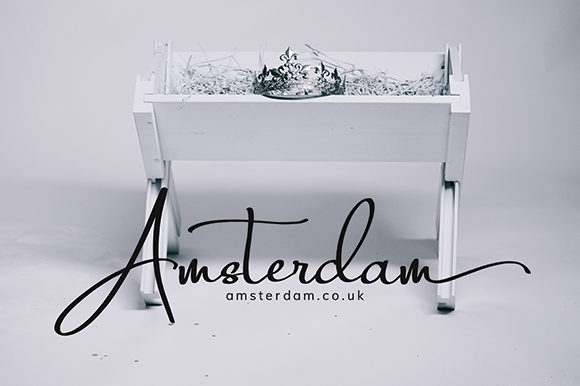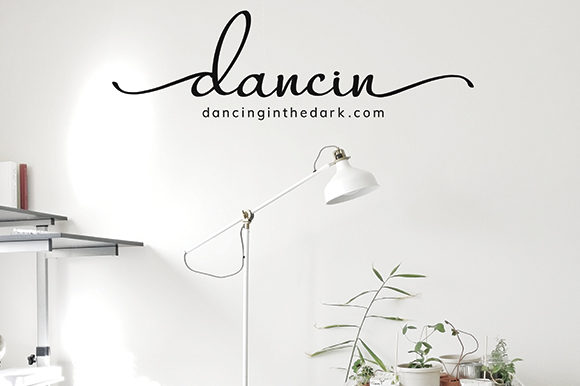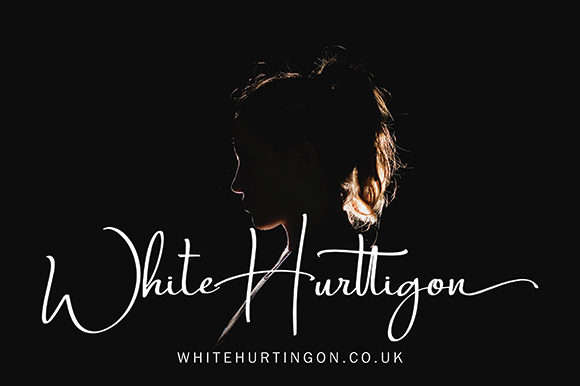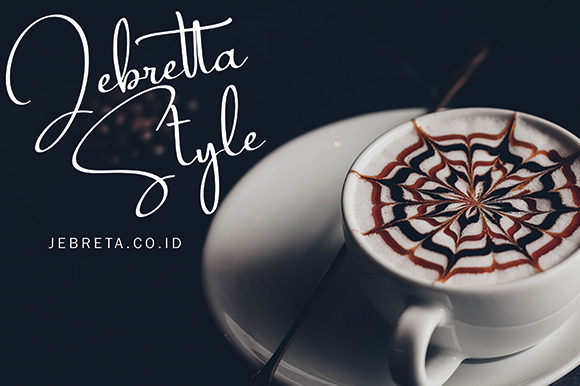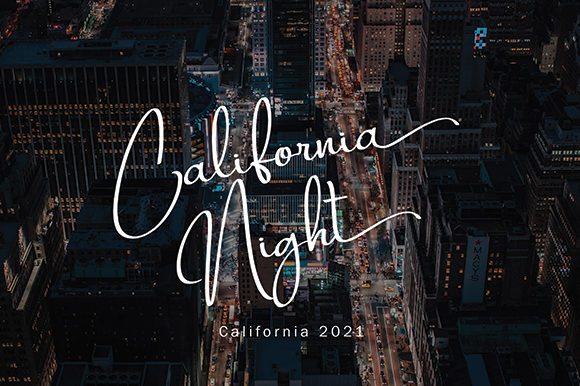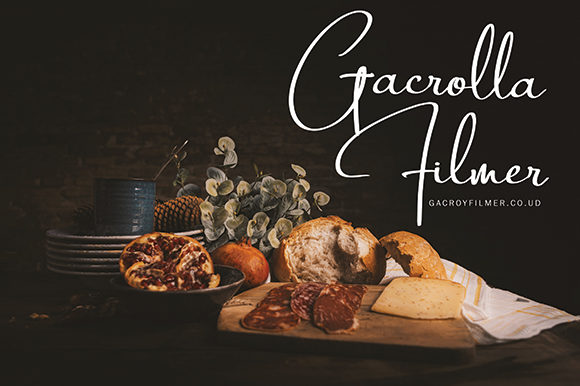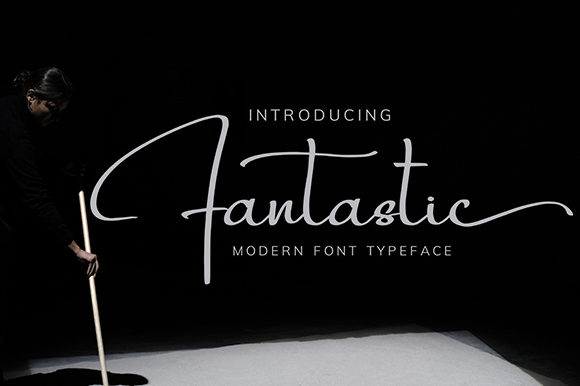
Fantastic Font: Elevate Your Designs with Elegance and Sophistication
Are you tired of using the same old fonts in your designs? Look no further than the Fantastic Font, a stunning handwritten font that is sure to take your projects to the next level. With its elegant and thin lines, this font is perfect for designers and crafters who want to add a touch of class and sophistication to their work.
What Makes Fantastic Font So Special?
Fantastic Font is a beautifully crafted font that boasts a range of impressive features. For starters, it is PUA encoded, which means that you can access all of the glyphs and swashes with ease. This makes it incredibly easy to use and customize, even for those who are new to font design.
But what really sets Fantastic Font apart is its unique blend of traditional and modern influences. With its classy calligraphic roots, this font maintains a sense of elegance and refinement, while its contemporary feel ensures that it stays fresh and relevant. Whether you’re working on a wedding invitation, a branding project, or a craft tutorial, Fantastic Font is the perfect choice.
The Benefits of Using Fantastic Font
So why should you choose Fantastic Font for your next project? Here are just a few of the benefits you can expect:
- Elegance and sophistication: Fantastic Font is the perfect choice for designers and crafters who want to add a touch of class to their work.
- Versatility: Whether you’re working on a wedding invitation, a branding project, or a craft tutorial, Fantastic Font is the perfect choice.
- Contemporary feel: Fantastic Font stays fresh and relevant, ensuring that your designs look modern and up-to-date.
How to Use Fantastic Font in Your Designs
Using Fantastic Font in your designs is incredibly easy. Here are a few tips to get you started:
- Choose the right project: Fantastic Font is perfect for projects that require a touch of elegance and sophistication, such as wedding invitations, branding projects, and craft tutorials.
- Experiment with different sizes and styles: Fantastic Font looks great in a range of sizes and styles, so don’t be afraid to experiment and find the perfect look for your project.
- Pair it with other fonts: Fantastic Font pairs beautifully with other fonts, so try combining it with a bold or script font to add some contrast and interest to your design.
Tips and Tricks for Working with Fantastic Font
Here are a few tips and tricks to help you get the most out of Fantastic Font:
- Use it sparingly: While Fantastic Font is incredibly beautiful, it can be overwhelming if used too much. Try using it sparingly to add a touch of elegance to your design.
- Pay attention to kerning: As with any font, kerning is important to ensure that your text looks professional and polished.
- Experiment with swashes: Fantastic Font comes with a range of swashes and glyphs, so don’t be afraid to experiment and add some extra flair to your design.
In conclusion, Fantastic Font is a truly fantastic addition to any designer’s or crafter’s toolkit. With its elegant and thin lines, PUA encoding, and contemporary feel, this font is sure to elevate your projects to the next level. Whether you’re working on a wedding invitation, a branding project, or a craft tutorial, Fantastic Font is the perfect choice. So why wait? Fall in love with Fantastic Font and bring your projects to the highest levels!